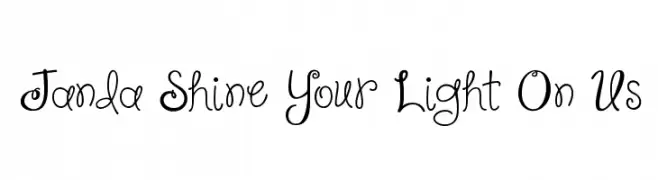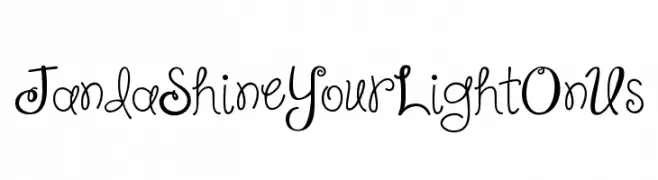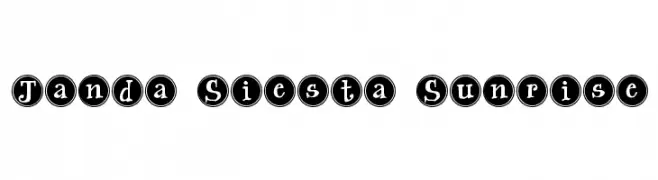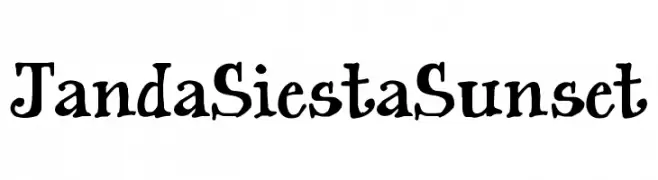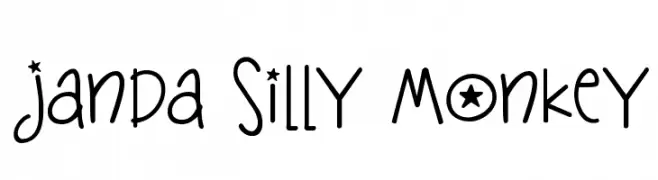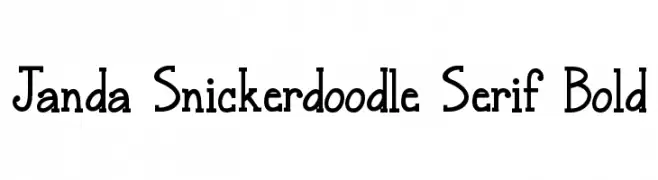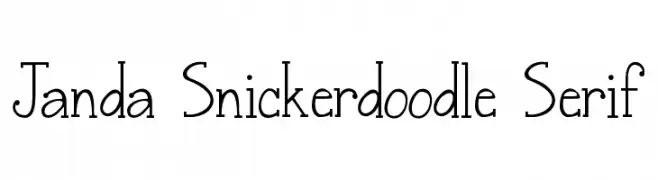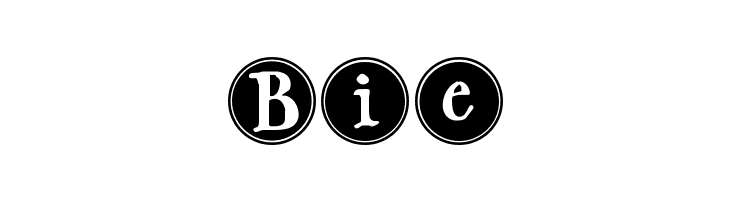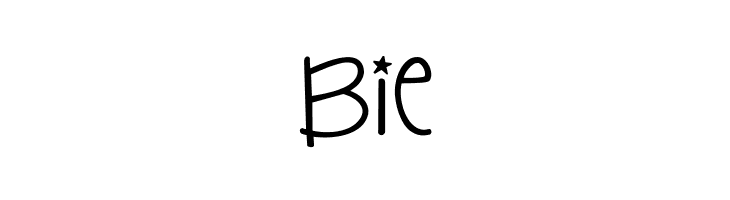
A whimsical handwritten font with decorative swirls and curls.
A playful, decorative font with characters enclosed in circular borders.
A playful, decorative font with characters enclosed in circles, perfect for creative projects.
A whimsical, hand-drawn font with playful, uneven characters.
A playful, hand-drawn font with a whimsical and friendly style.
A playful serif font with tall, narrow characters and whimsical details.
A playful serif font with a whimsical, decorative style.
A playful serif font with an italic style and medium contrast.